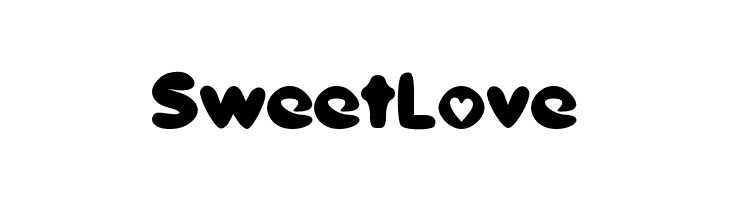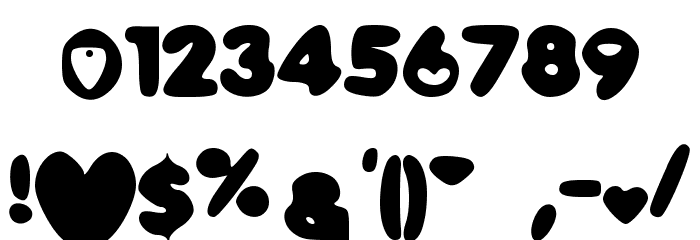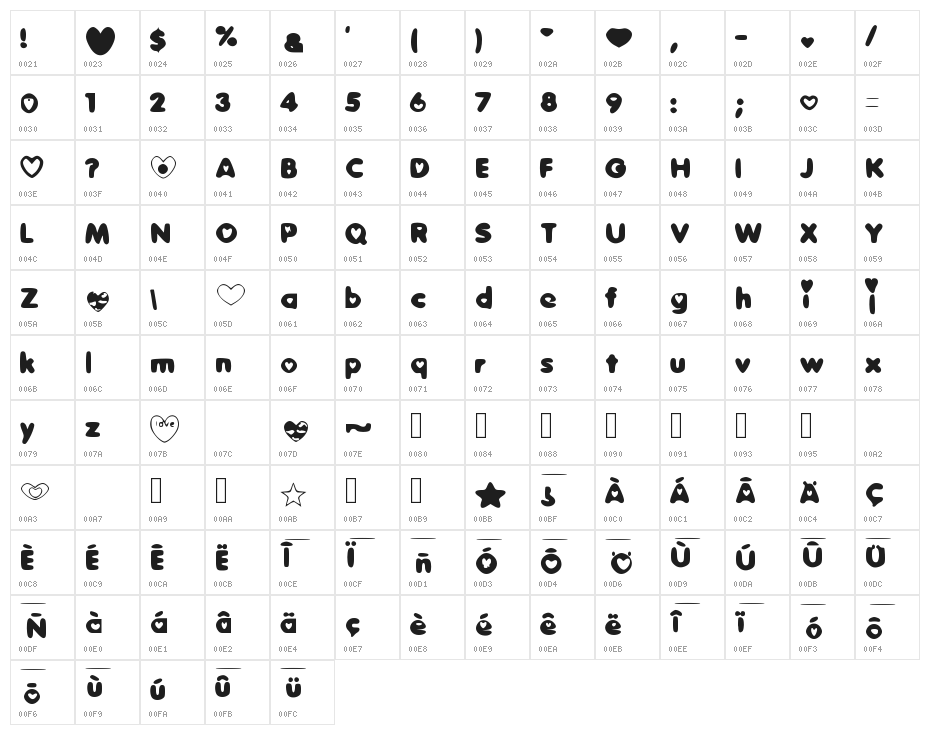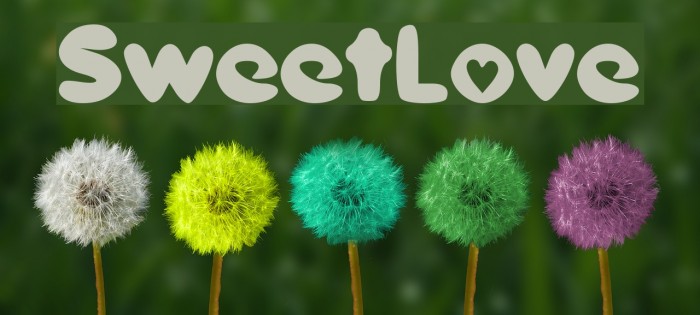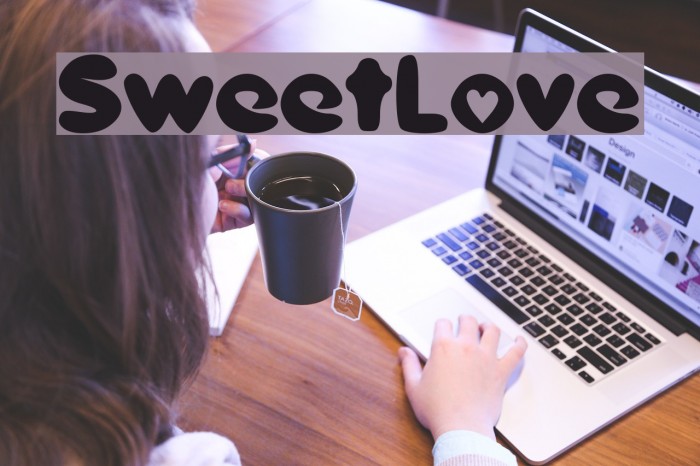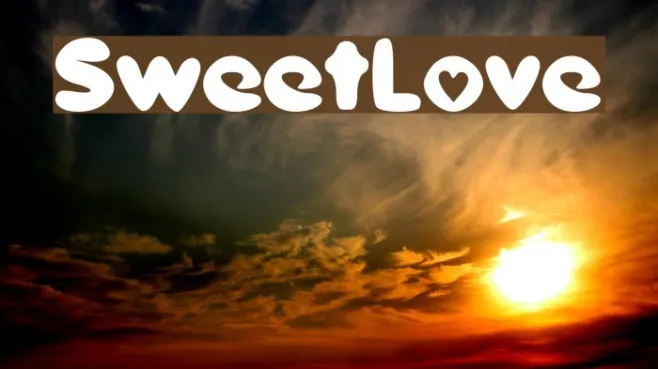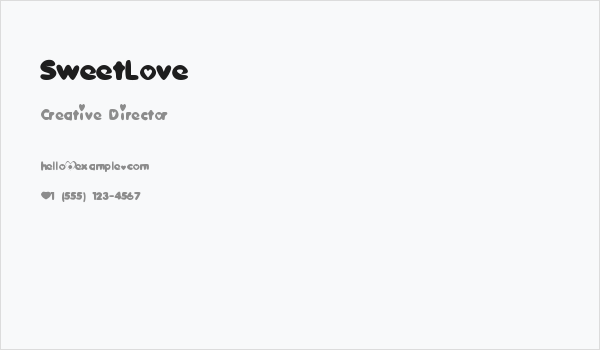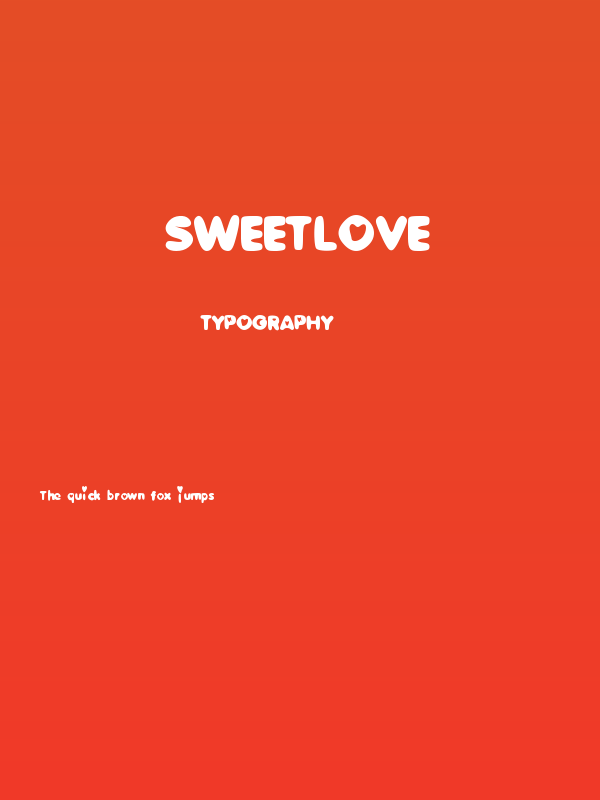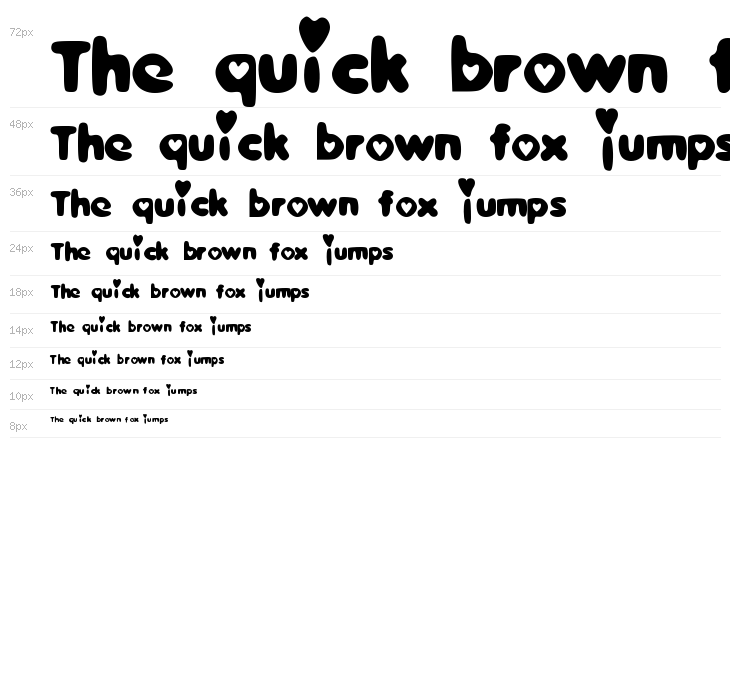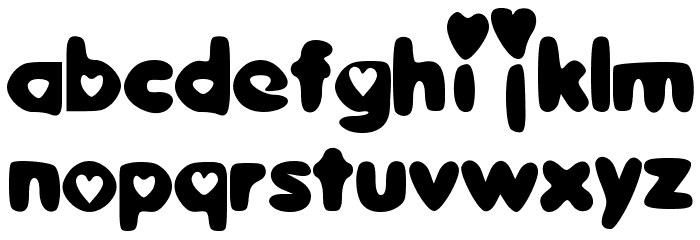
SweetLove Font
SweetLove Description
This playful and bold font features rounded, bubble-like characters that convey a sense of fun and whimsy. The letters are thick and have a consistent weight, creating a strong visual impact. The unique heart-shaped elements integrated into some of the characters add a touch of charm and romance, making it ideal for designs that aim to evoke warmth and affection. The numbers and special characters maintain the same playful style, ensuring a cohesive look across all text elements. This font is perfect for projects that require a lively and engaging aesthetic.
| Proposed Projects | Ideal for children's books, greeting cards, playful branding, and romantic-themed designs. |